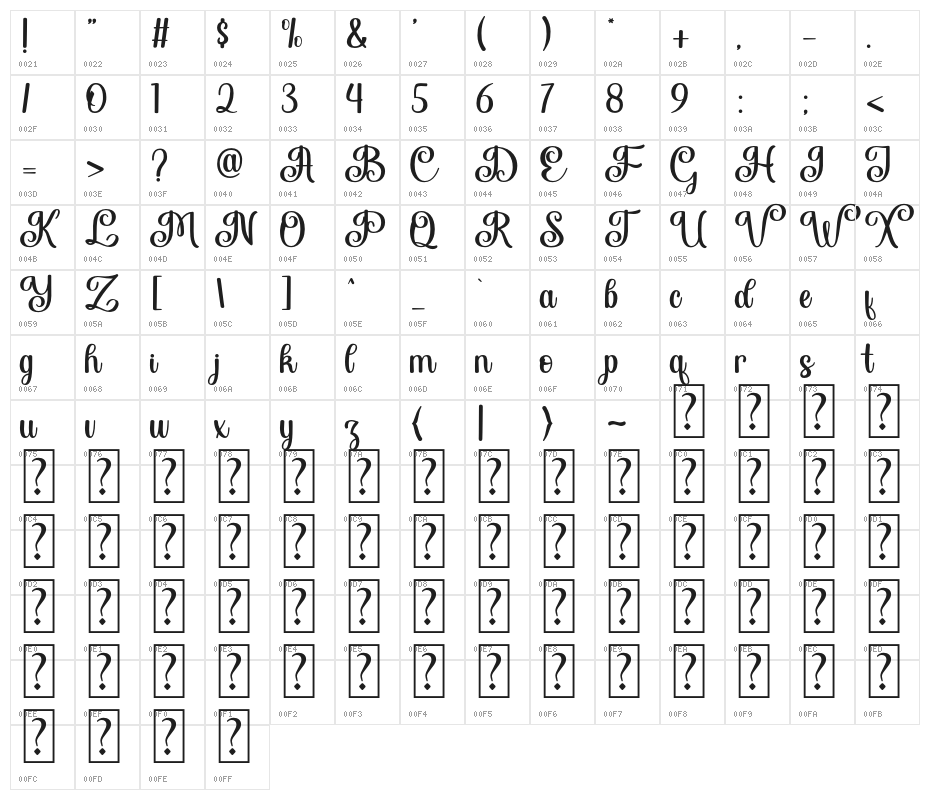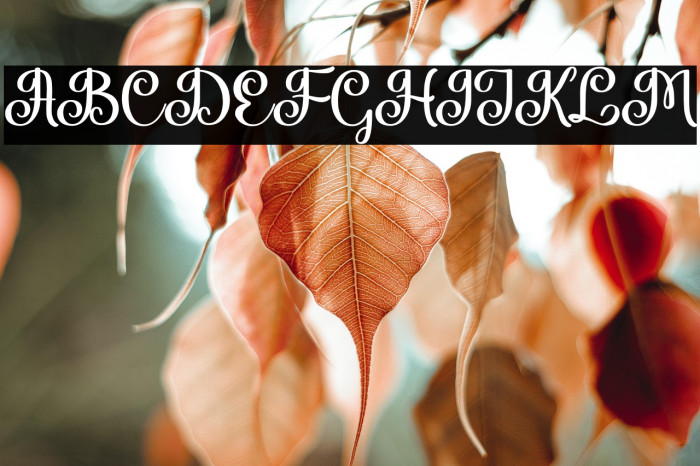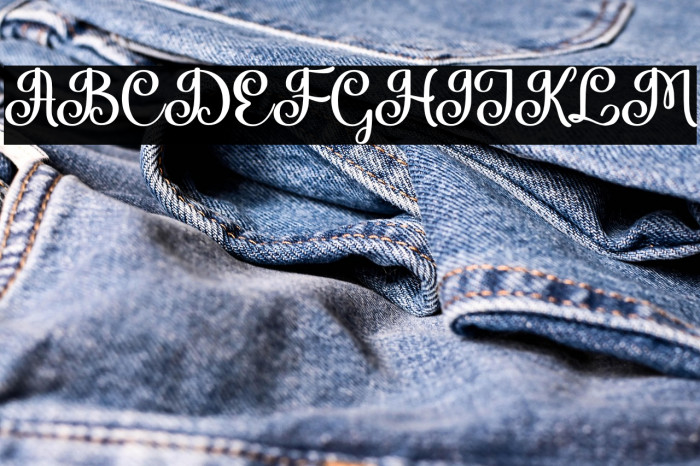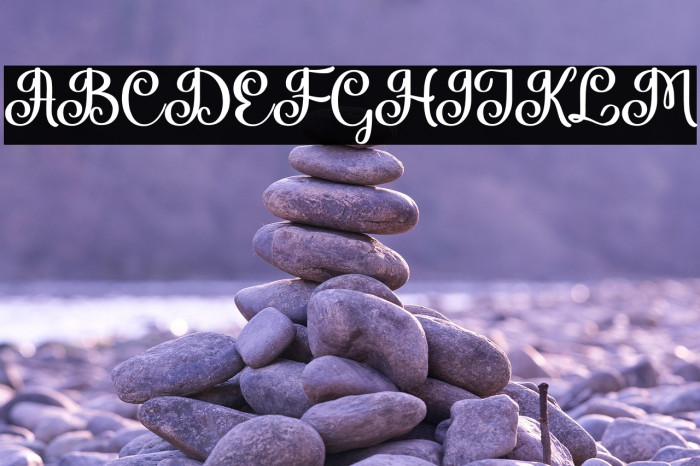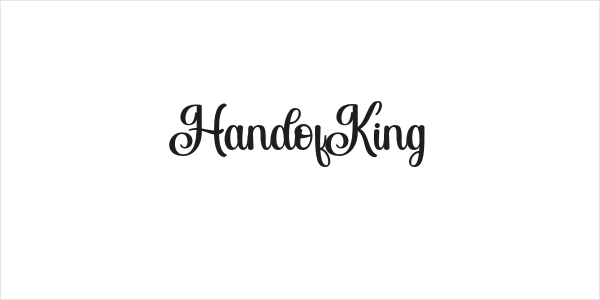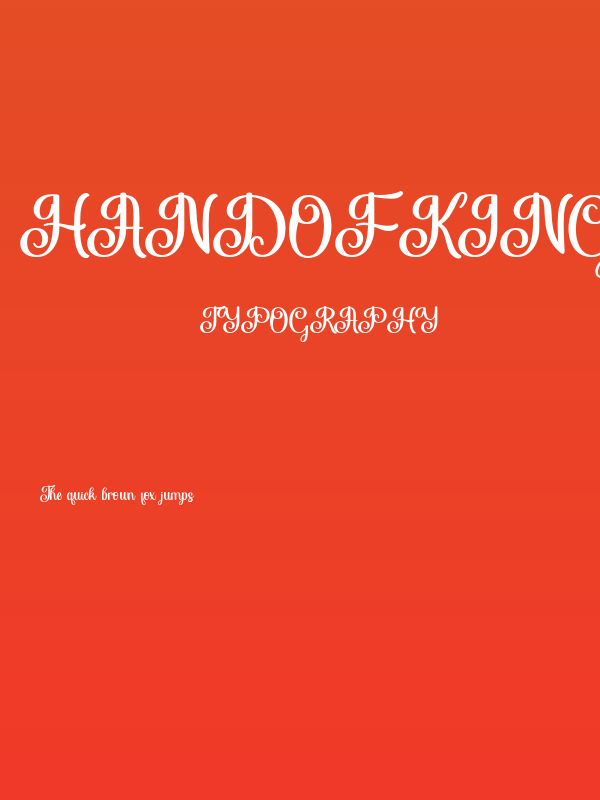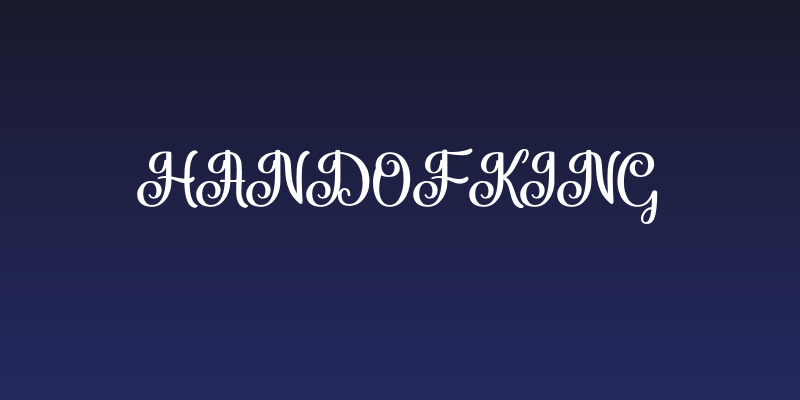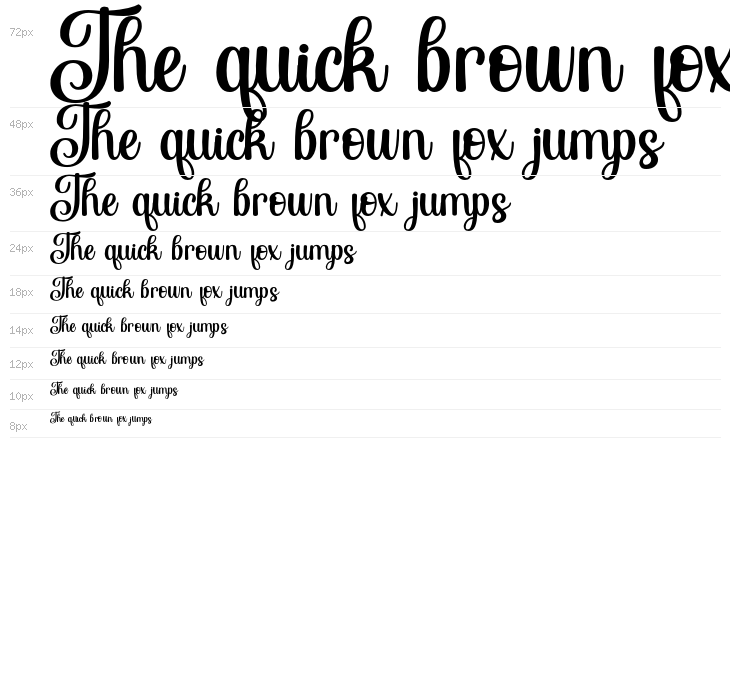
HandofKing Font
HandofKing Description
This font exudes a playful and whimsical charm with its curly and looping letterforms. The uppercase letters are adorned with intricate swirls, giving them a decorative flair that captures attention. The lowercase letters maintain a more straightforward yet still playful style, with some characters featuring unique tails and loops. The numbers are bold and consistent, matching the overall playful theme. Special characters are creatively designed, adding to the font's versatility. This font is ideal for projects that require a touch of fun and creativity, such as invitations, greeting cards, and playful branding.
| Overall Style | Playful, Whimsical, Decorative |
| Proposed Projects | Ideal for invitations, greeting cards, playful branding, and creative projects. |